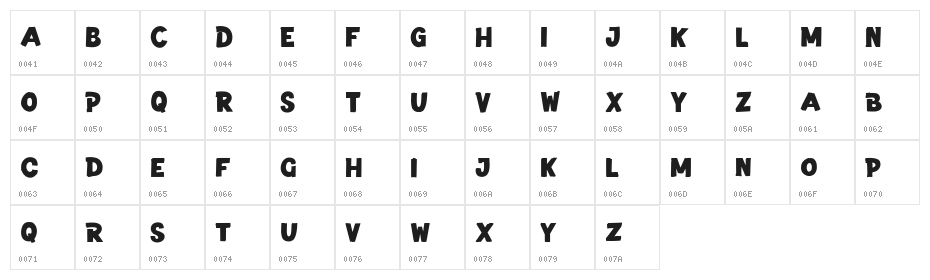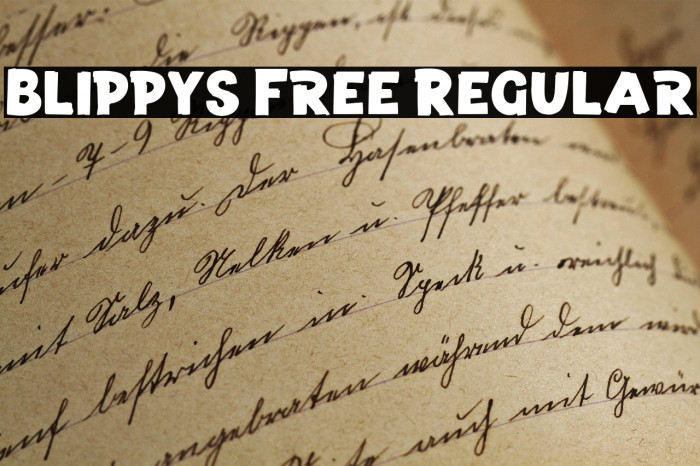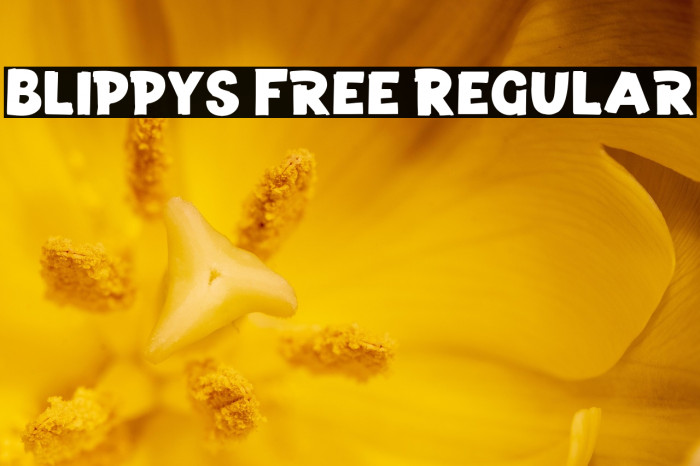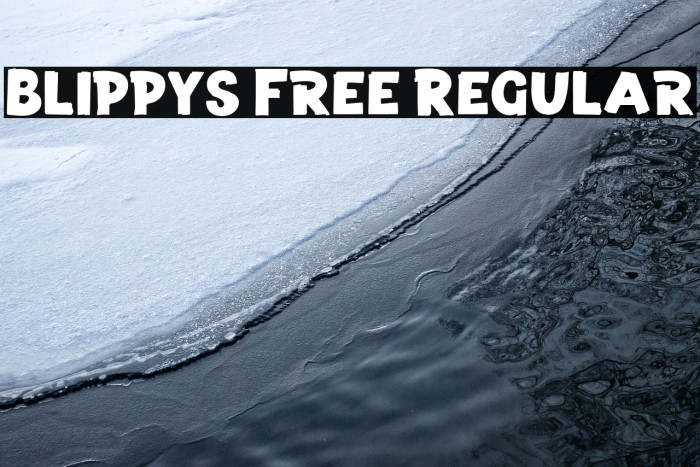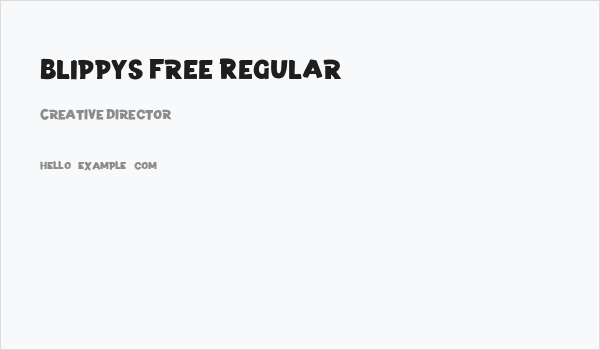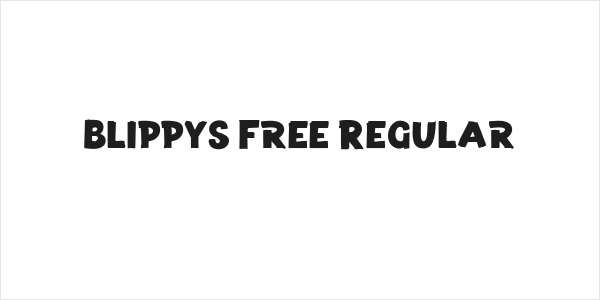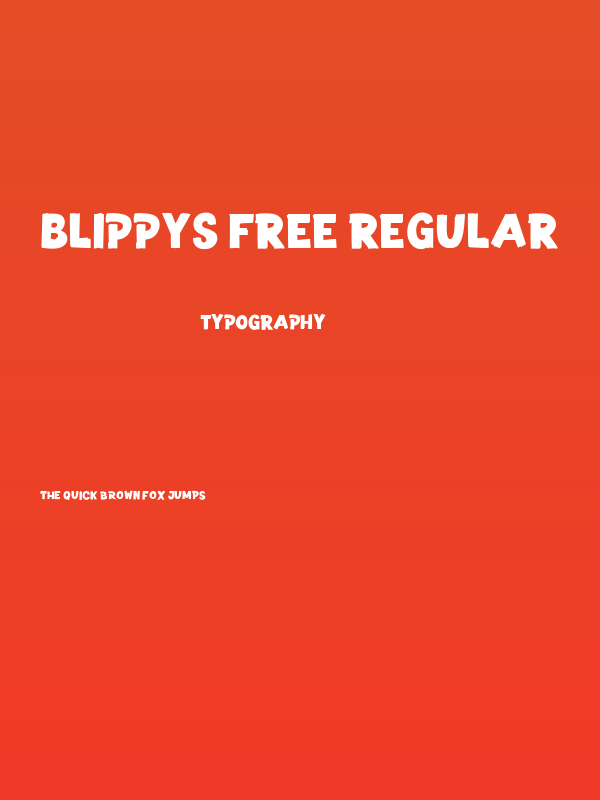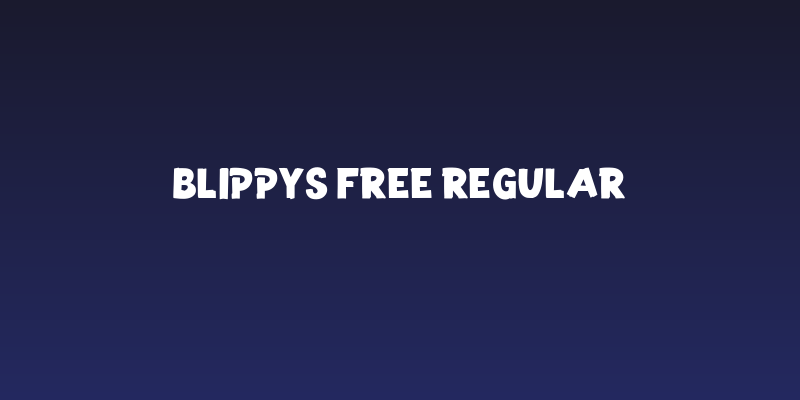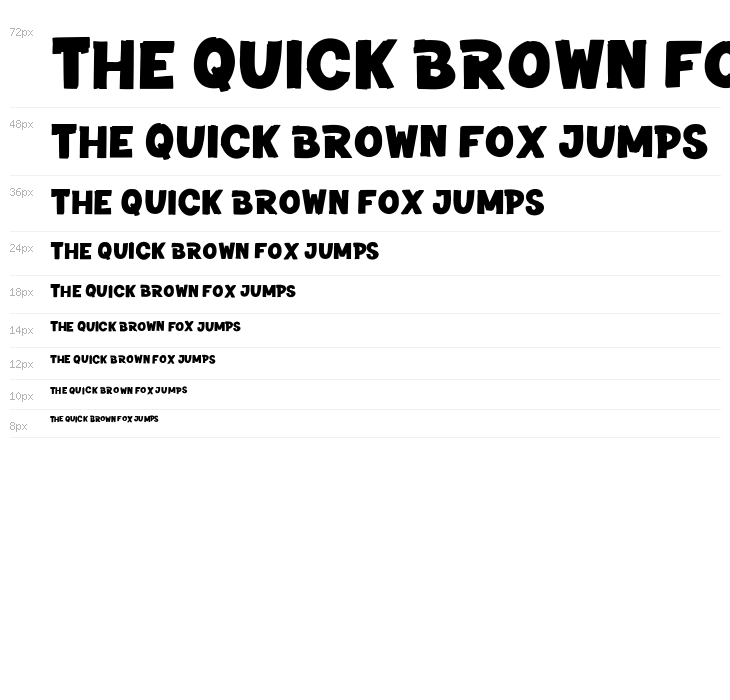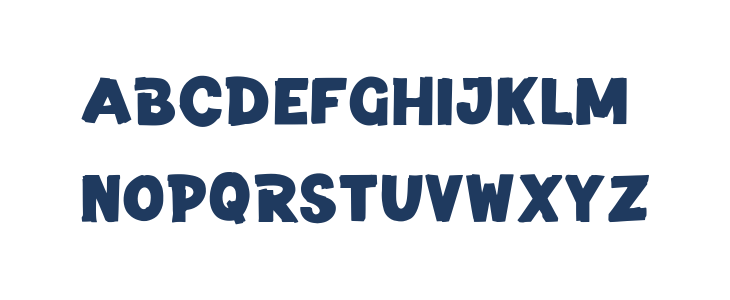
Blippys Free Regular Font
Blippys Free Regular Description
This font features a bold and playful design with a distinctly cartoonish and informal style. The characters are thick and rounded, giving them a friendly and approachable appearance. The strokes are consistent in weight, contributing to a cohesive look across all letters. The overall design is energetic and lively, making it suitable for projects that require a fun and engaging aesthetic. The font maintains a uniform width, ensuring readability while adding a touch of whimsy. Its unique style makes it stand out, perfect for creative and informal applications.
| Overall Style | Playful, Cartoonish |
| Proposed Projects | Ideal for children's books, comic strips, playful branding, and posters. |